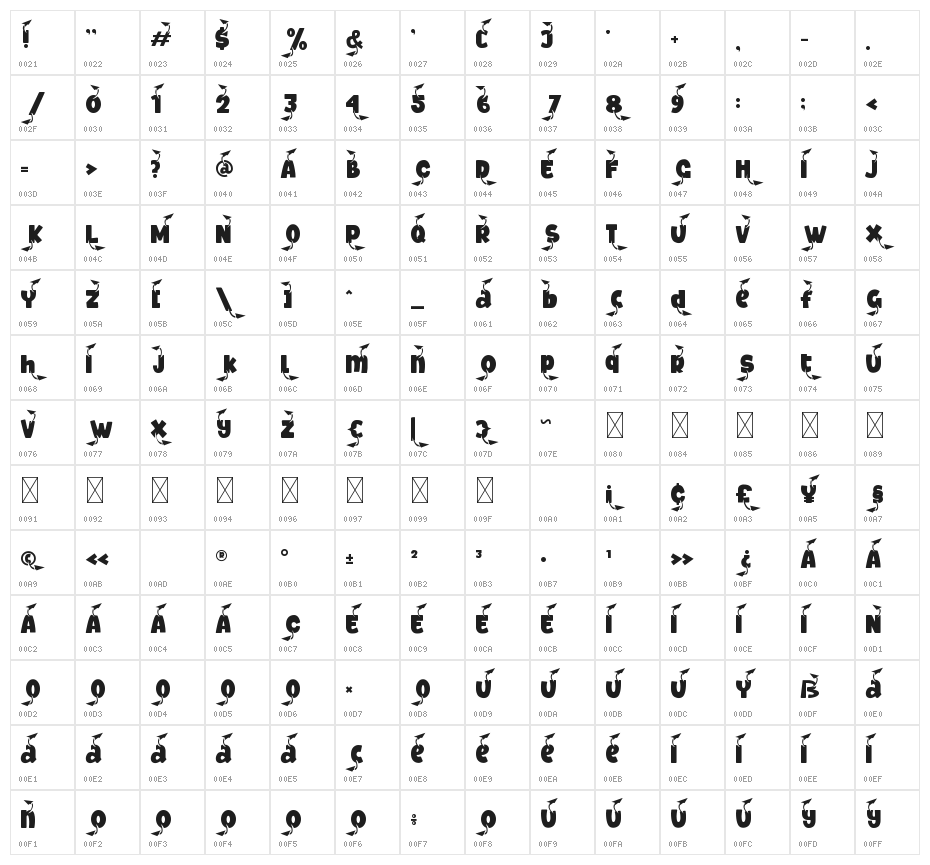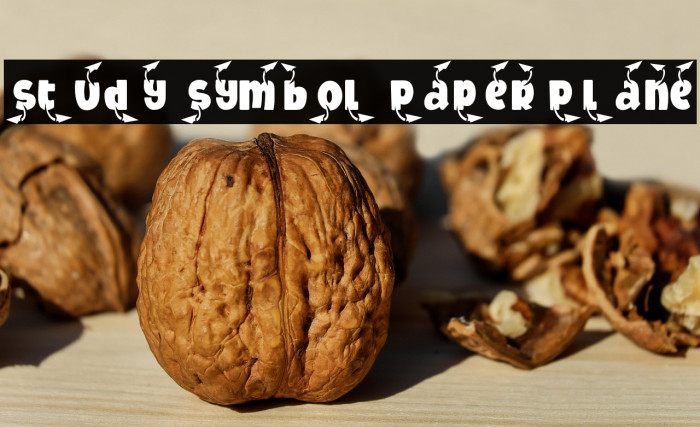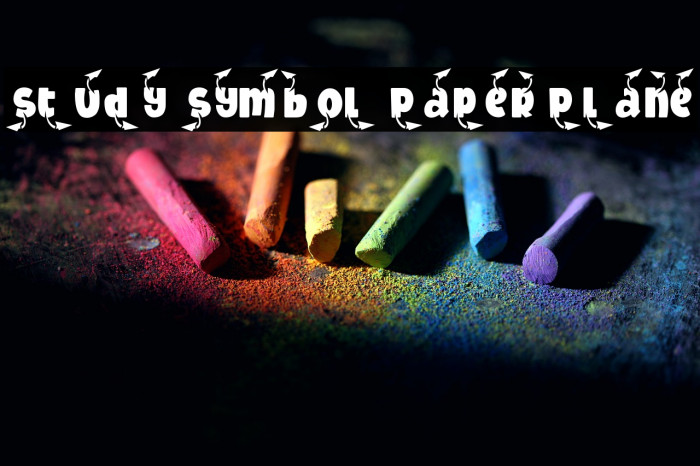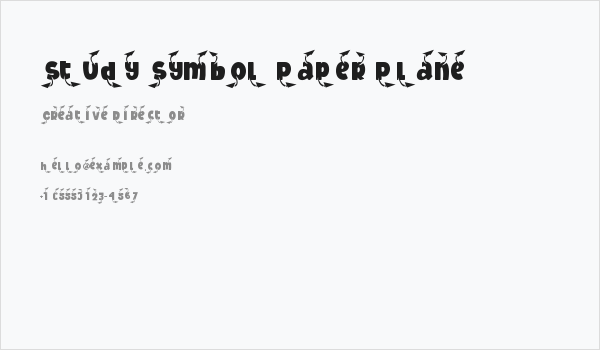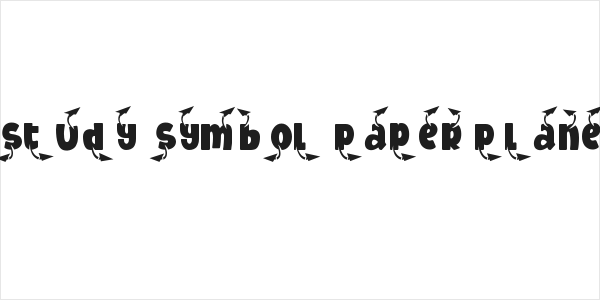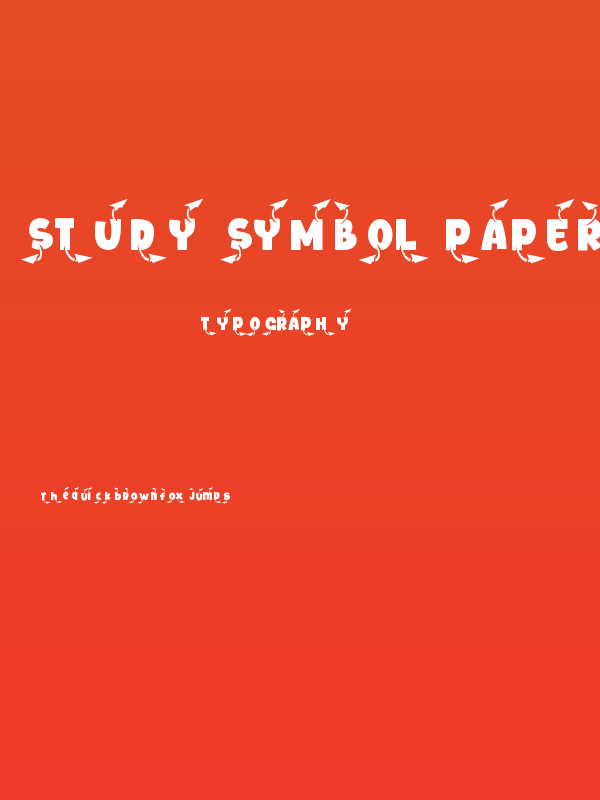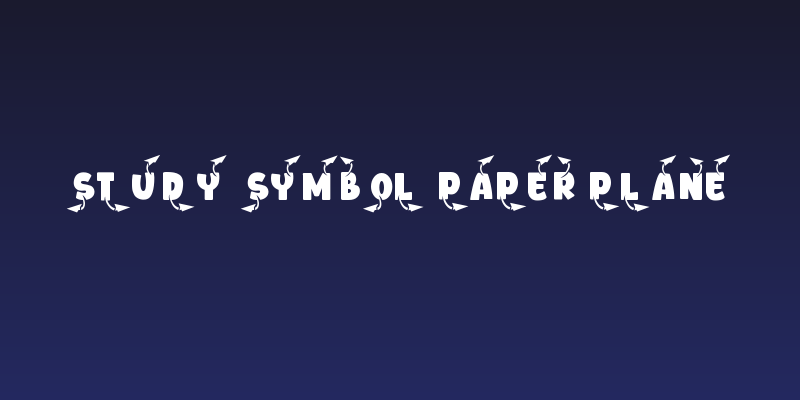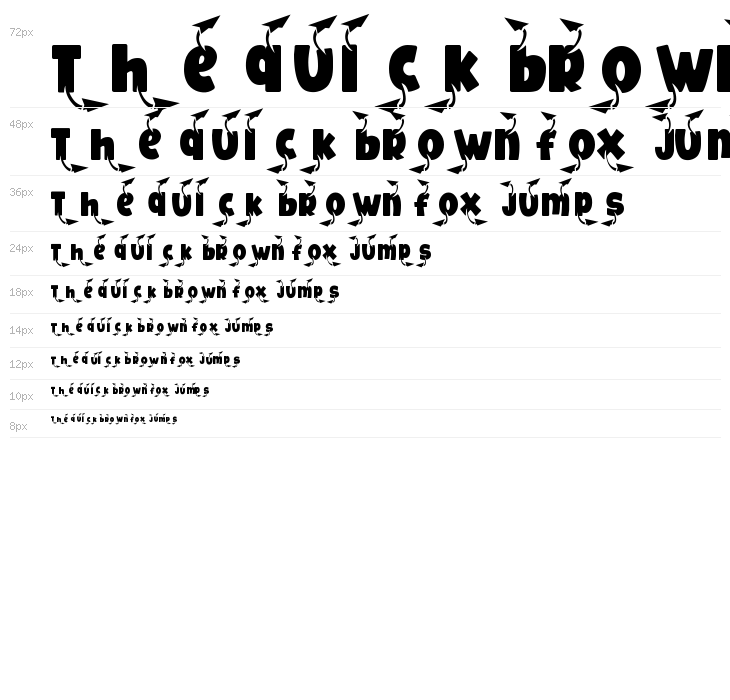
Study Symbol Paper Plane Font
Study Symbol Paper Plane Description
This font features bold, playful characters with a unique paper plane motif integrated into each letter and symbol. The design is whimsical and eye-catching, making it ideal for creative and informal projects. Each character is crafted with a bold weight, providing a strong visual impact. The paper plane elements add a dynamic and adventurous feel, suggesting movement and creativity. The font maintains a consistent width and character spacing, ensuring readability despite its decorative elements. The contrast in stroke thickness is medium, balancing the boldness of the characters with the intricate paper plane details.
| Overall Style | Playful, Creative |
| Proposed Projects | Ideal for children's books, educational materials, playful branding, and creative posters. |